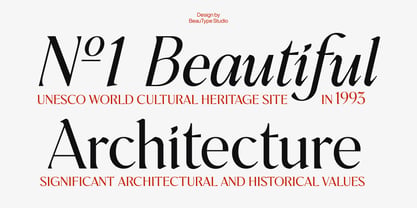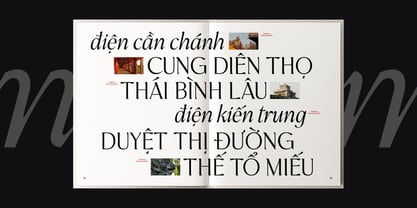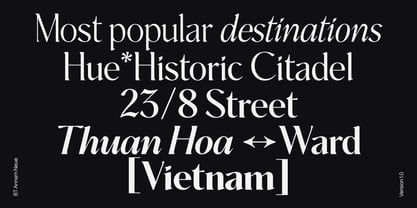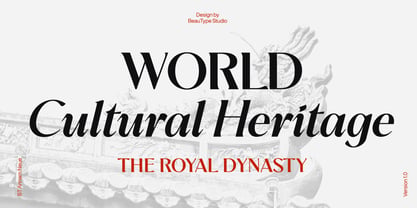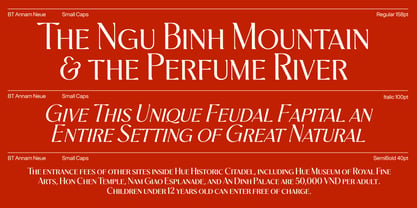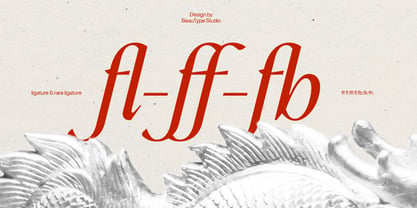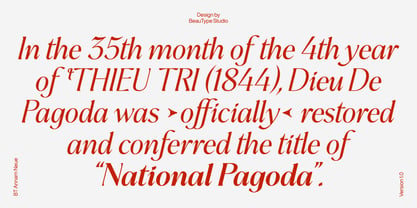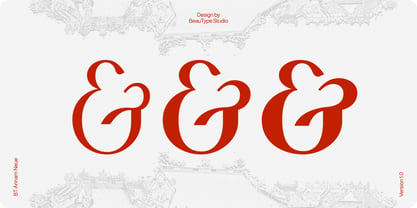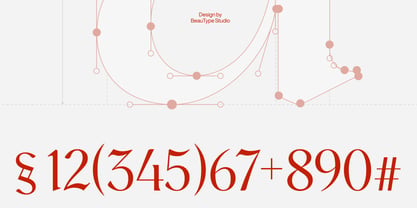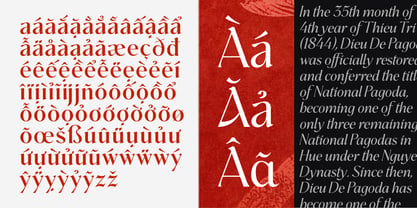
BT Annam Neue
by BeauType
The BT Annam Neue Font Family was designed by Duong Nguyen and published by BeauType. BT Annam Neue contains 10 styles and family package options. More about this family
Inspired by the broad-edge calligraphy technic and the motifs of the Hue Historic Citadel's roof, this BT Annam Neue is born to offer a new cultural experience. It is designed to connect Vietnamese heritage destinations with international friends. Strong strokes, soft curves, together with distinctive dots establish a yin yang harmony. The typeface includes 10 styles (upright, italic) and an additional small-caps option, suitable for long paragraph that require full-caps text. In addition, we also provide you with ligature and 3 stylistic sets for both letters and numbers.
Designers: Duong Nguyen
Foundry: BeauType